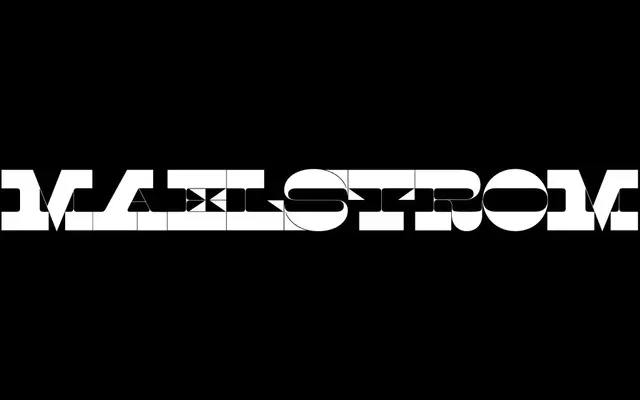
Maelstrom
Maelstrom specimen from Klim Type Foundry
A single-weight reversed-stress slab serif with razor-thin spacing, leaning into a perverse Italian-genre charm for display sizes.
A reversed-stress slab by Kris Sowersby with weight pushed onto the horizontals and razor-thin spacing forming narrow strips of light through the black mass. Released as a single Bold cut, no italic. The sister face to Maelstrom Sans inside the Maelstrom collection, and a deliberate engagement with what Klim describe as a perpetual typographic outsider, never fashionable yet never abandoned.
Klim classifies it as a Reversed-Stress Slab Serif; razor-thin spacing forms narrow strips of light through the black mass. Sits in the Maelstrom collection alongside the sans-serif Maelstrom Sans.